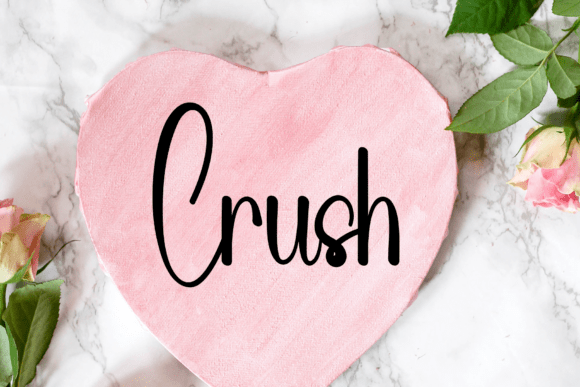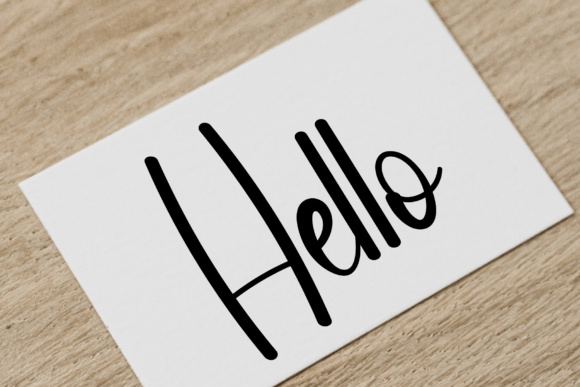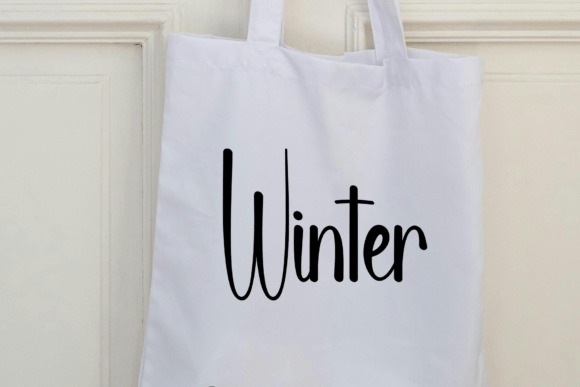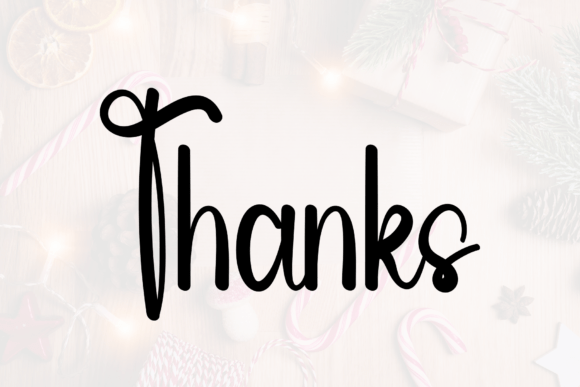
Introduction to Bookish Christmas Font
As I sit by the fireplace, surrounded by twinkling lights and the soft glow of candles, I feel the magic of the holiday season wash over me. It’s moments like these that inspire me to create something truly special – a design that captures the essence of the season and brings joy to all who see it. And that’s exactly what the Bookish Christmas Font does.
This enchanting typeface is a treasure trove of creativity, perfect for designers looking to add a touch of whimsy and high quality to their holiday projects. With its unique blend of elegance and playfulness, the Bookish Christmas Font is a design resource that’s sure to elevate any creative project. And the best part? It’s available as a free download, making it a transparent background for designers to experiment with.
Key Features of Bookish Christmas Font
- High-quality, unique font design perfect for creative projects
- Designed with a vintage, book-inspired aesthetic, adding a touch of whimsy to any project
- Perfect for holiday-themed designs, such as Christmas cards, gift tags, and more
- High-resolution design, suitable for use in print and digital applications
Honest Review: Bookish Christmas Font
As a designer, I’m always on the lookout for high-quality design resources to elevate my creative projects. The Bookish Christmas Font is a great addition to any winter-themed design. One of the things that stands out about this font is its unique and whimsical style, perfect for adding a touch of magic to your design. ✨
The font itself is quite versatile, with a range of styles and weights to choose from. This makes it easy to use in a variety of design contexts, from invitations to social media graphics. The transparent background option is also a nice touch, allowing you to easily layer the font over other design elements.
- Unique and whimsical style
- Versatile font with multiple styles and weights
- Limitations:
- May not be suitable for formal or professional designs
- Limited character set (may not include all special characters)
Overall, I’m really impressed with the Bookish Christmas Font. It’s a great design resource for anyone looking to add a touch of holiday cheer to their creative projects. With its high-quality design and transparent background, it’s a must-have for any designer. ⚠️ Just be aware of the limitations mentioned above.
The Bookish Christmas Font is a high-quality design resource perfect for creative projects. This free download offers a unique, festive style ideal for the holiday season. With a transparent background, you can easily incorporate it into various design platforms.
Getting the Most Out of the Bookish Christmas Font
For optimal results, use the Bookish Christmas Font in conjunction with other festive design elements. Experiment with different font sizes, colors, and styles to create a unique and eye-catching design.
The Bookish Christmas Font is ideal for:
- Christmas card designs
- Holiday party invitations
- Seasonal social media graphics
- Winter-themed blog posts